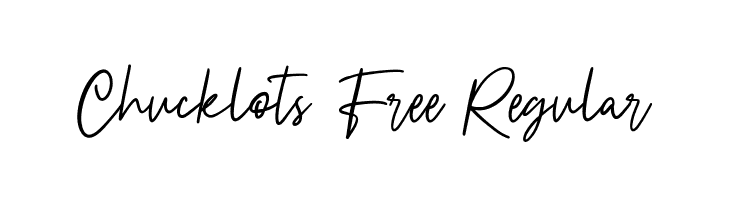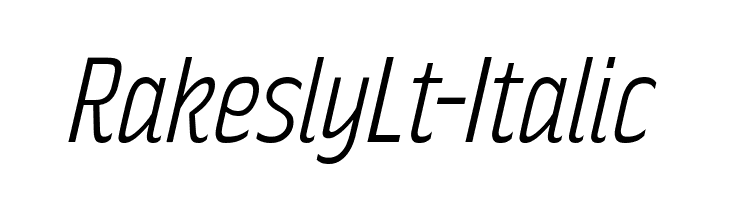
A bold, hand-painted style font with dynamic, brush-like strokes.
A bold, distressed font with a grungy, horror-themed aesthetic.
A modern italic font with clean lines and a sleek, contemporary style.
A bold, edgy font with a hand-drawn, distressed style.
A bold, playful font with a three-dimensional outline, perfect for decorative uses.
An elegant and flowing script font with intricate loops and swashes.
A bold, rounded, and playful font with a modern aesthetic.